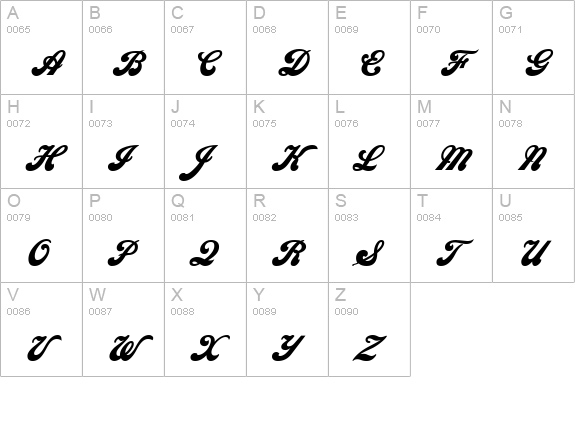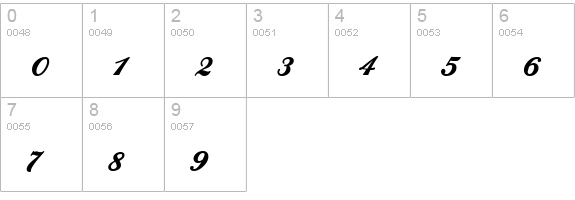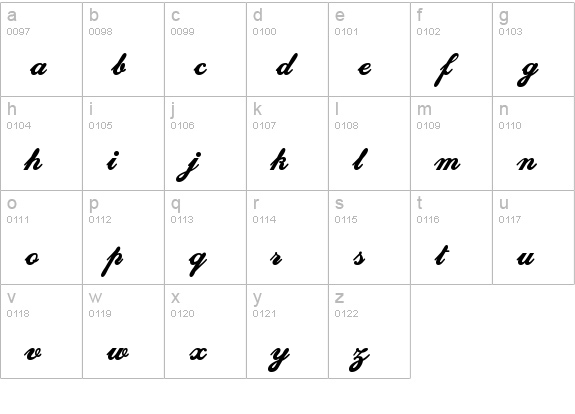
Sweden Bold is a strong, high-contrast variant in the Sweden typeface family \xE2\x80\x94 well suited to headlines, attention-grabbing titles, and strong calls-to-action.
Sweden Bold font is a modern and stylish typeface that exudes confidence and sophistication. With its bold and clean lines, this font is perfect for making a statement in your designs. The strong and elegant appearance of Sweden Bold makes it ideal for headlines, branding, and other projects where you want to grab attention. What sets Sweden Bold font apart is that it is not only visually appealing but also freely available to download at FontsMarket.com. This means you can easily access and use this high-quality font without any hassle. Whether you are a designer, marketer, or simply someone looking to elevate their projects, Sweden Bold font is a versatile choice that will help you stand out.